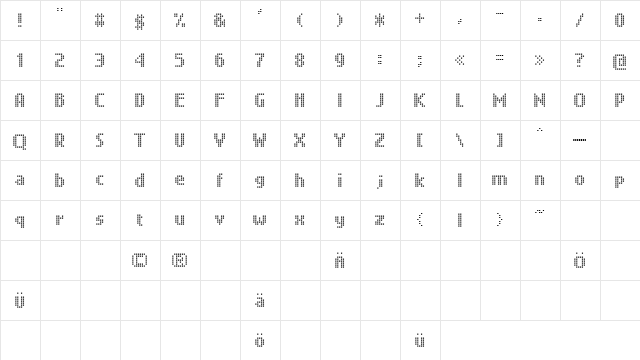
quant Light
Design Context for quant Typeface
quant takes a measured approach to typography — its balanced proportions and neutral character make it a reliable workhorse for both digital and print work. Its slender proportions lend an understated elegance to any composition.